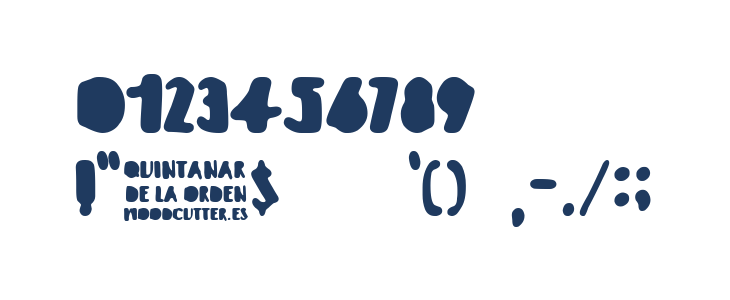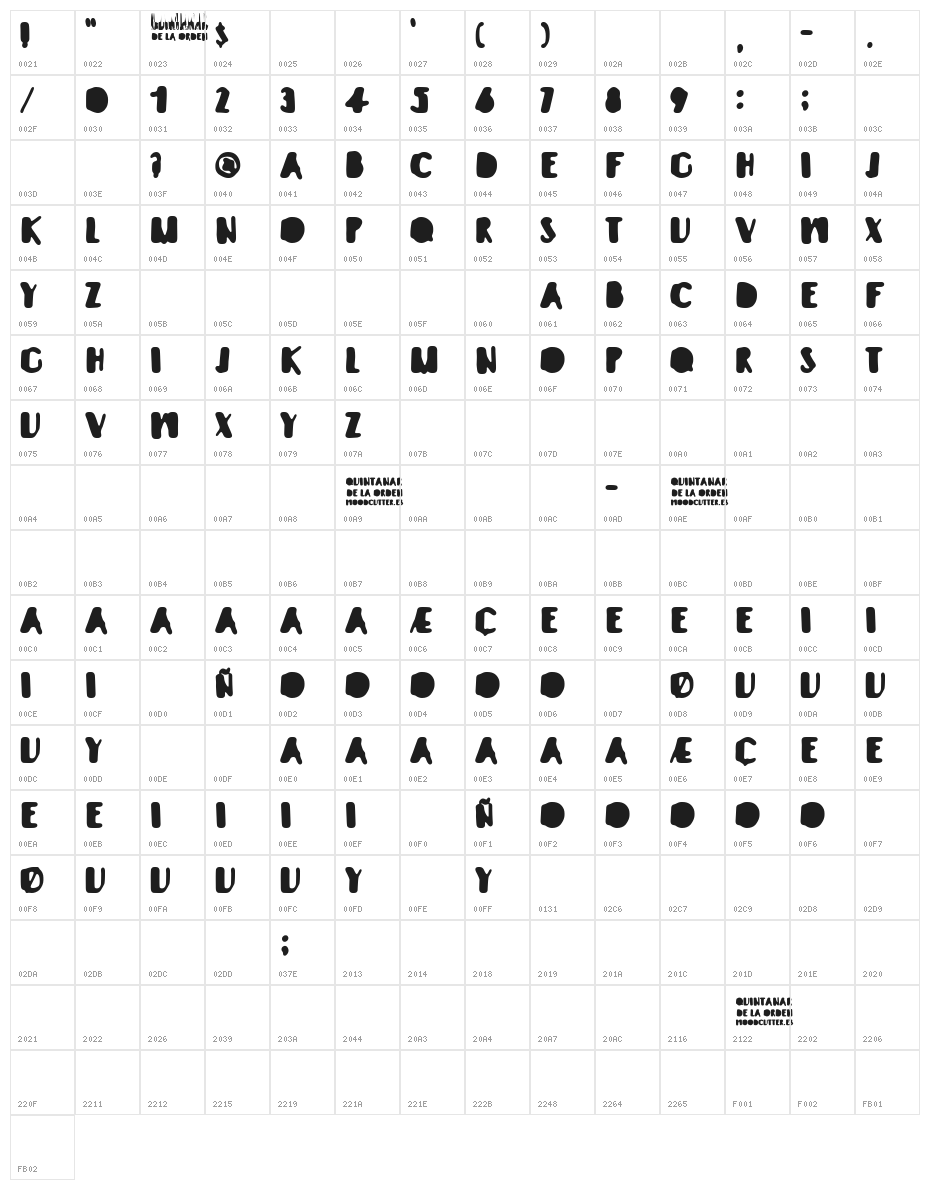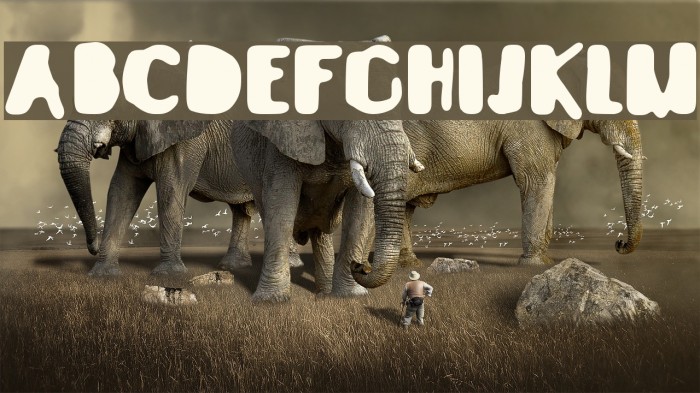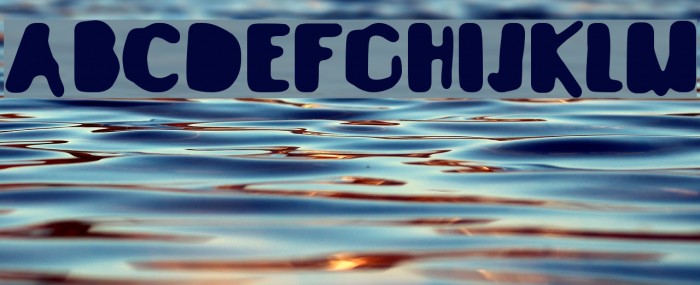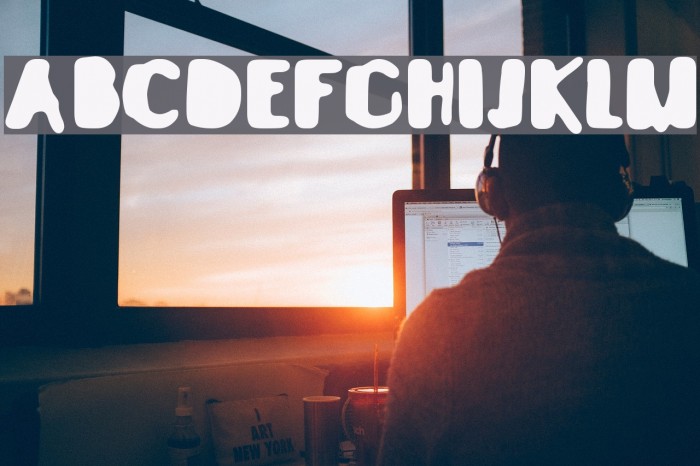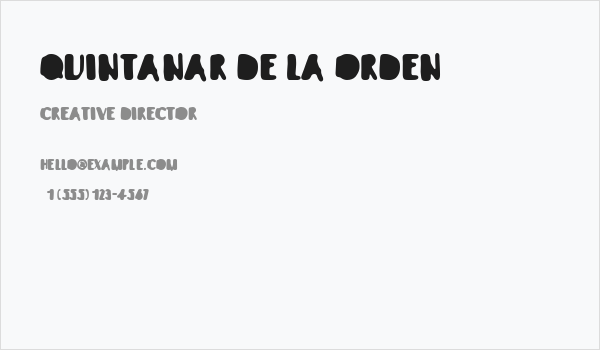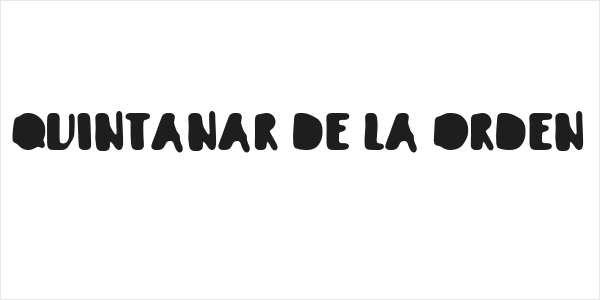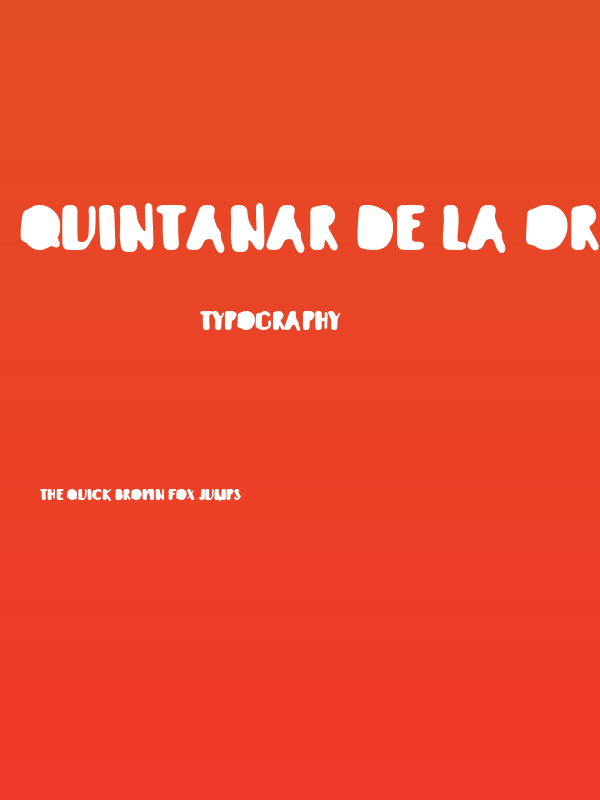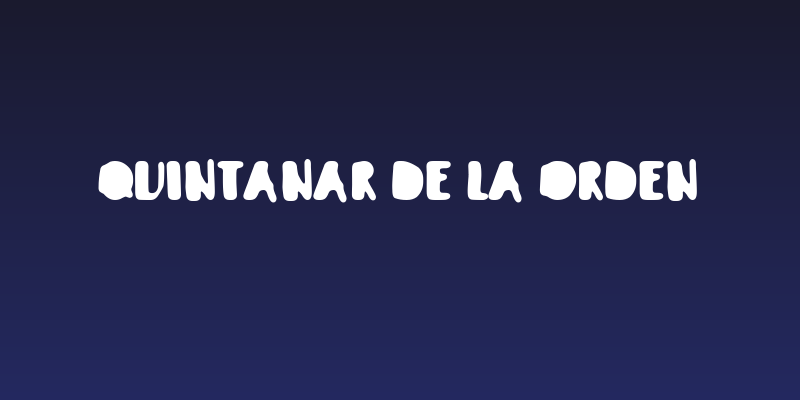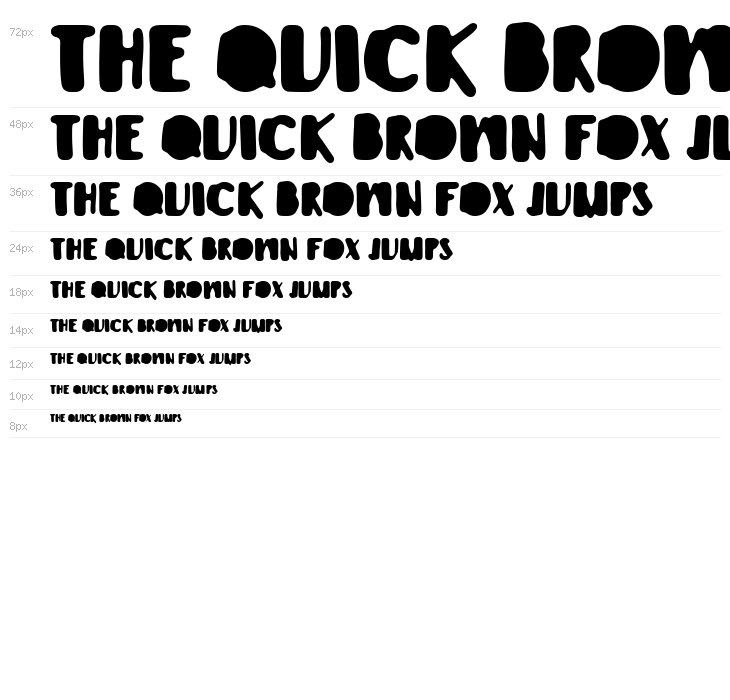
Quintanar de la Orden Font
Quintanar de la Orden Description
This font features bold, rounded characters with a playful and chunky appearance. The letters are uniformly thick, giving them a strong presence on the page. The style is reminiscent of retro or vintage designs, with a touch of modern flair. The characters are slightly irregular, adding a whimsical and informal feel. This font is highly legible and stands out due to its substantial weight and unique character shapes. It's suitable for projects that require a fun and engaging typeface.
| Overall Style | Retro, Playful |
| Proposed Projects | Ideal for children's books, playful branding, posters, and retro-themed designs. |